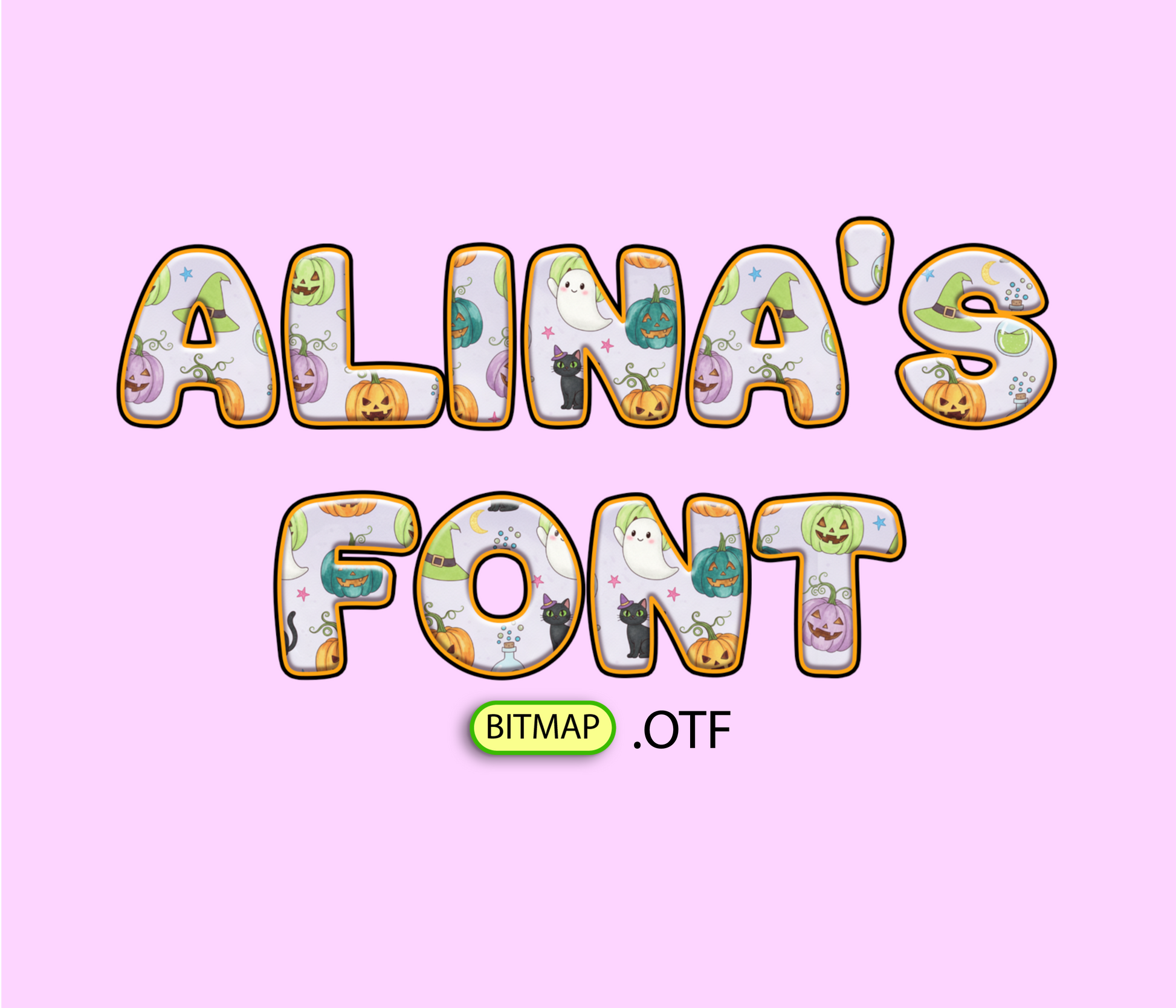
Ghoulish Colorful Halloween Pattern Font
Step into the spooky world of festive frights with our Ghoulish Colorful Halloween Pattern font, capturing the essence of haunted celebrations and vibrant tricks-or-treats. Perfect for Halloween fans, party planners, event organizers, and designers, this font brings the playful, eerie spirit of autumn festivities to your projects. Create spine-tingling materials, merchandise, or digital content with the colorful energy of ghostly celebrations.
Our Ghoulish Colorful Halloween Pattern font features playful, spooky lines and festive characters reflecting the world of haunted holidays. Ideal for:
- Event Promotions: Create frightful invites, posters, and banners for Halloween parties, costume contests, and trick-or-treat events that capture the spirit of spooky celebrations
- Merchandise Design: Perfect for t-shirts, posters, and accessories that showcase the vibrant aesthetic of haunted festivities and ghostly fun
- Digital Media: Enhance websites, blogs, and social media with colorful headers and graphics that express the joy of Halloween traditions
- Seasonal Content: Add authentic flair to party decorations, Halloween projects, and creative designs inspired by spooky holiday tales
- Personal Projects: Bring festive excitement to scrapbooking, DIY crafts, and home decor inspired by the world of autumn frights
Our font pays tribute to the iconic world of Halloween celebrations, empowering your designs with its playful and spooky spirit. Whether crafting promotional materials, designing merchandise, or adding a festive touch to personal projects, this font communicates the bold essence of haunted holidays. Ready to inject colorful frights into your creations? This font is your key to exciting, impactful design.